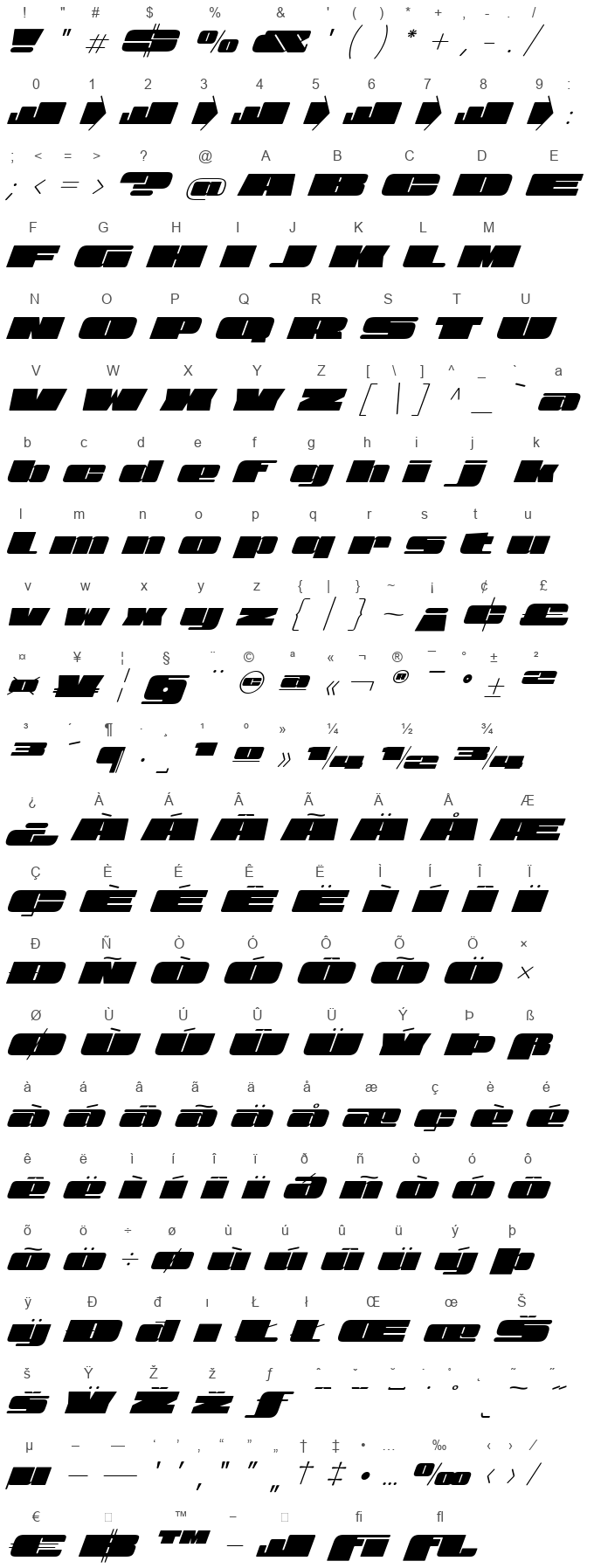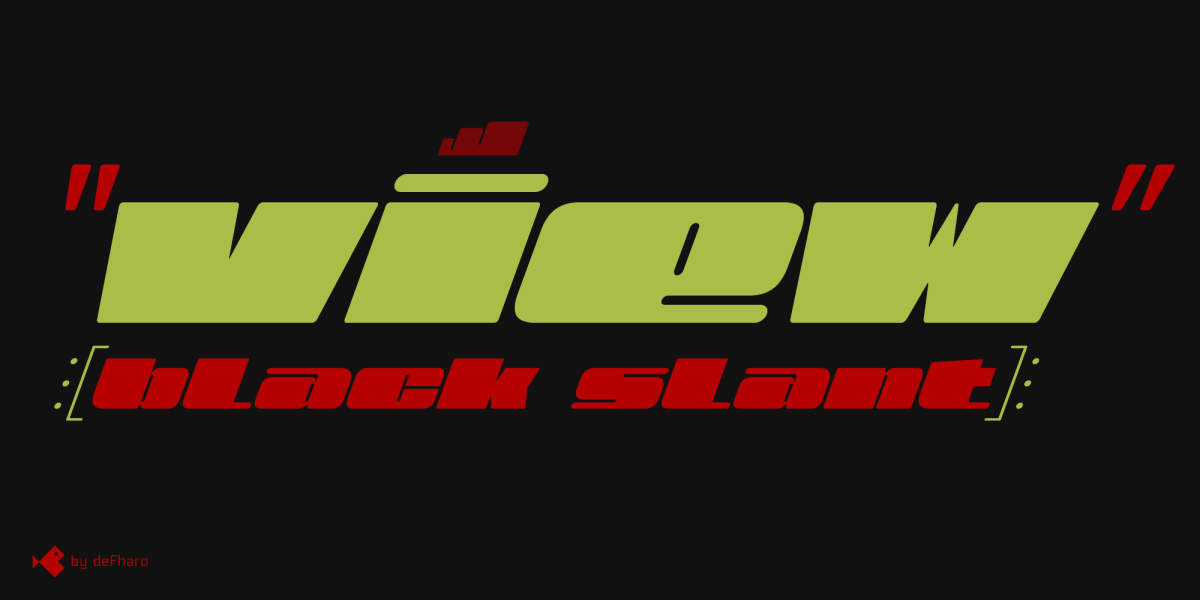
View Slant Black ExtExp
Copyright (c) 2025 by deFharo. All rights reserved.. Version 1.235;DFHA;ViewSlant-Black;2025;FL842. View Slant Black. Version 1.235. ViewSlant-Black. View Black Slant is a trademark of deFharo.. deFharo. Fernando Haro. View is designed to stand out, make an impact, and dominate any visual space with elegance. Its exaggeratedly wide proportions and black weight don't ask for permission: each letter is a statement of presence, an explosion of character that doesn't go unnoticed. It's made for those who appreciate the impact of super-thick and extra-wide typefaces. Its shapes are pure power, with a perfect balance between the strength of the Roman style and the dynamism of the Slanted. Ideal for headlines that want to be heard, for brands that want to stand out, or for designs that demand character. Designed in two versions —Roman and Slant— View is a font that combines the strength of a powerful stroke with the elegance of refined details.. https://defharo.com/fonts/view/. https://defharo.com. Personal use only (FFP)! Leer / Read: https://defharo.com/product-usage-agreement-ffp/ Commercial license. READ: https://defharo.com/terms-and-conditions-commercial-fonts/ Please visit www.defharo.com to buy a commercial license.. View Slant. Black